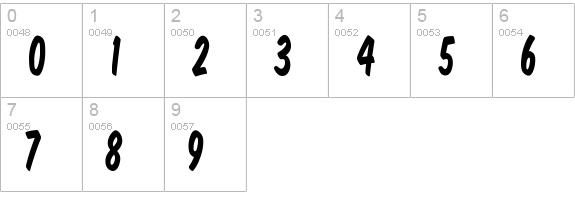
Komika Title - Tall Font Details
Komika Title - Tall font is a versatile and bold typeface that exudes a modern and stylish aesthetic. With its tall and sleek letterforms, this font is perfect for making a statement in headlines, posters, logos, and branding materials. The unique character shapes and strong vertical emphasis of Komika Title - Tall font will grab the attention of your audience and give your designs a contemporary edge. Best of all, Komika Title - Tall font is available for free download at FontsMarket.com. Whether you're a designer looking to add a fresh touch to your projects or a creative individual exploring new typography options, this font is a fantastic choice. Don't miss out on the opportunity to enhance your designs with the striking presence of Komika Title - Tall font. Download it now and start creating stunning visuals that captivate and inspire.